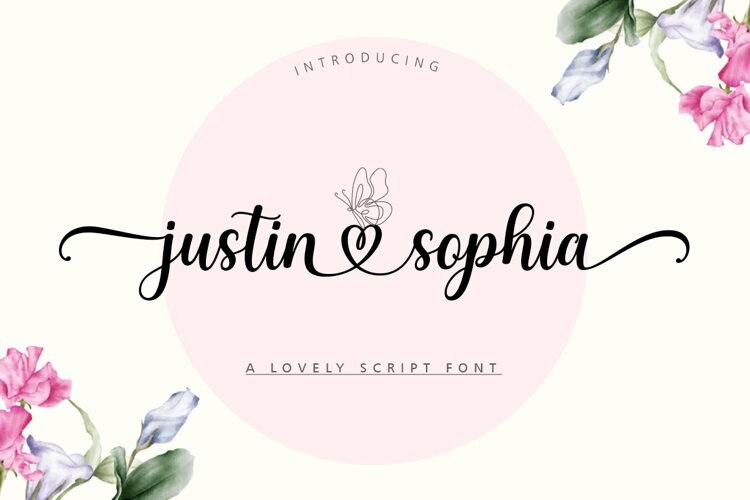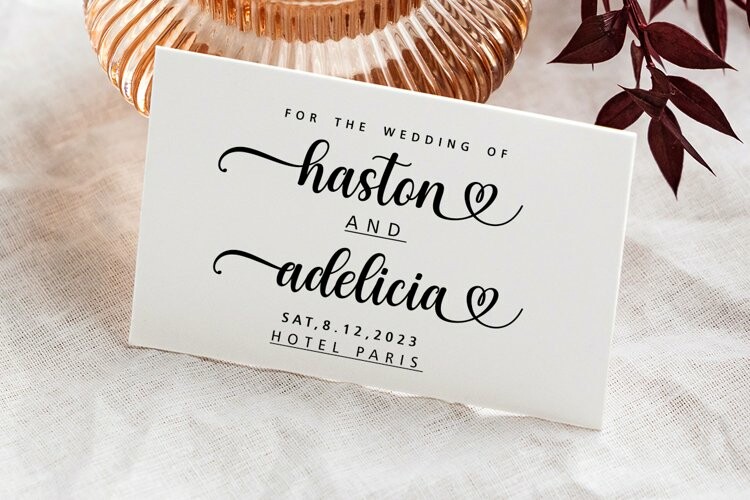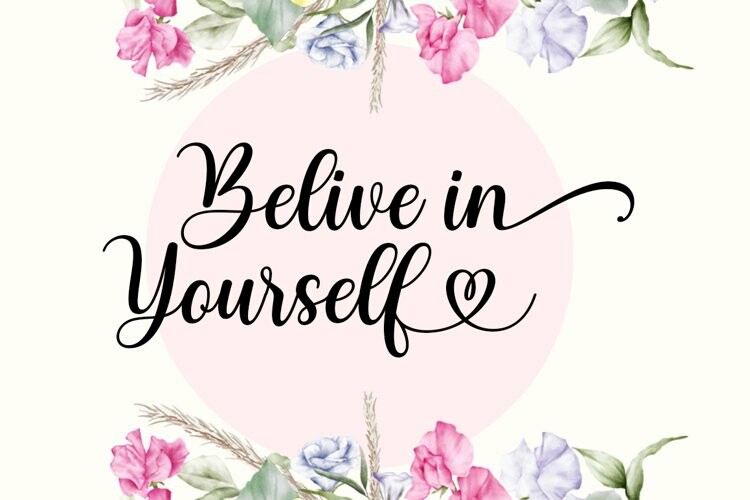
Justin Sophia Font
Justin Sophia FontJustin Sophia! Fresh modern lovely font with decorative characters and dancing baseline. So beautiful on invitations such as crafts, greeting cards, branding materials, business cards, quotes, posters and other design concepts.